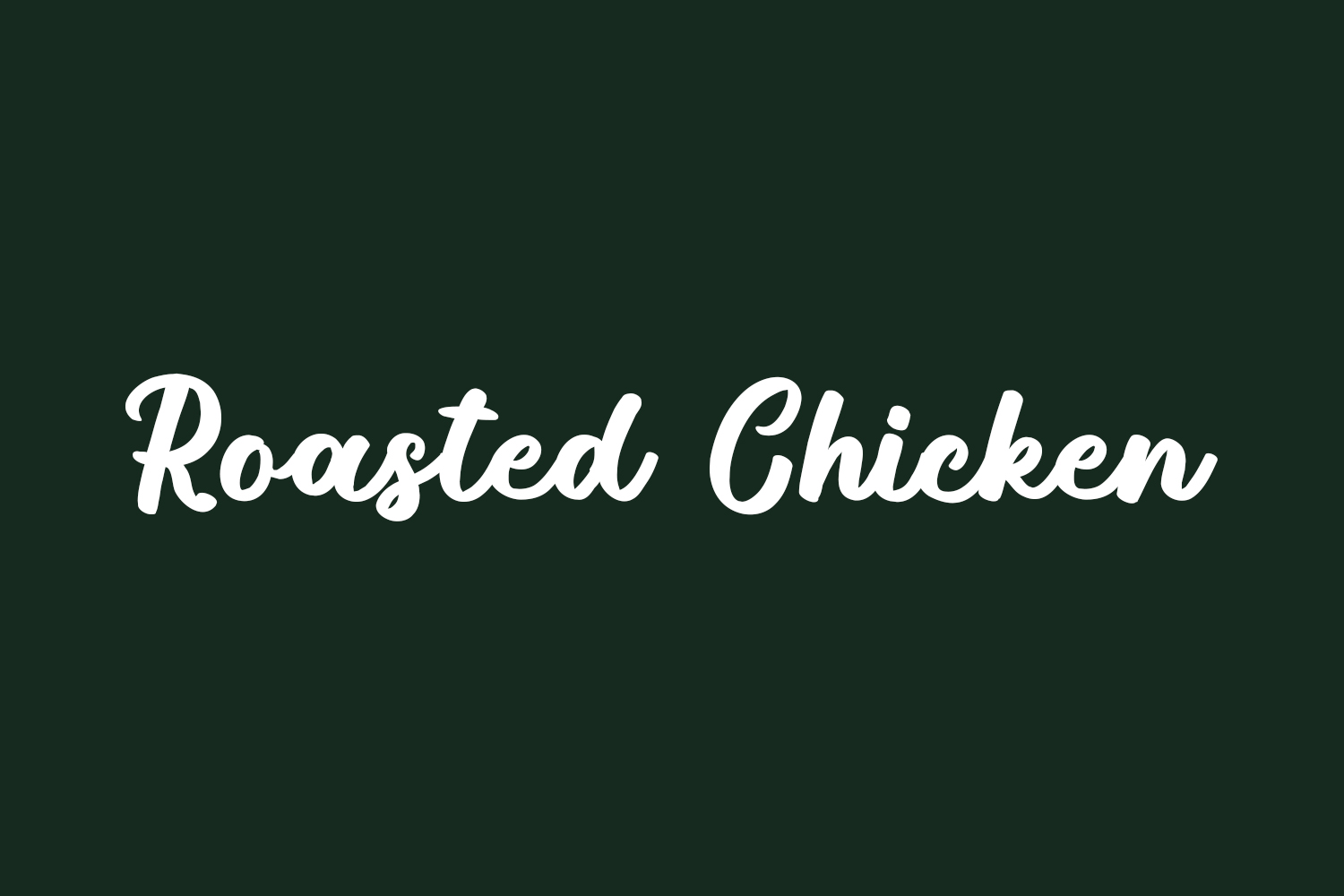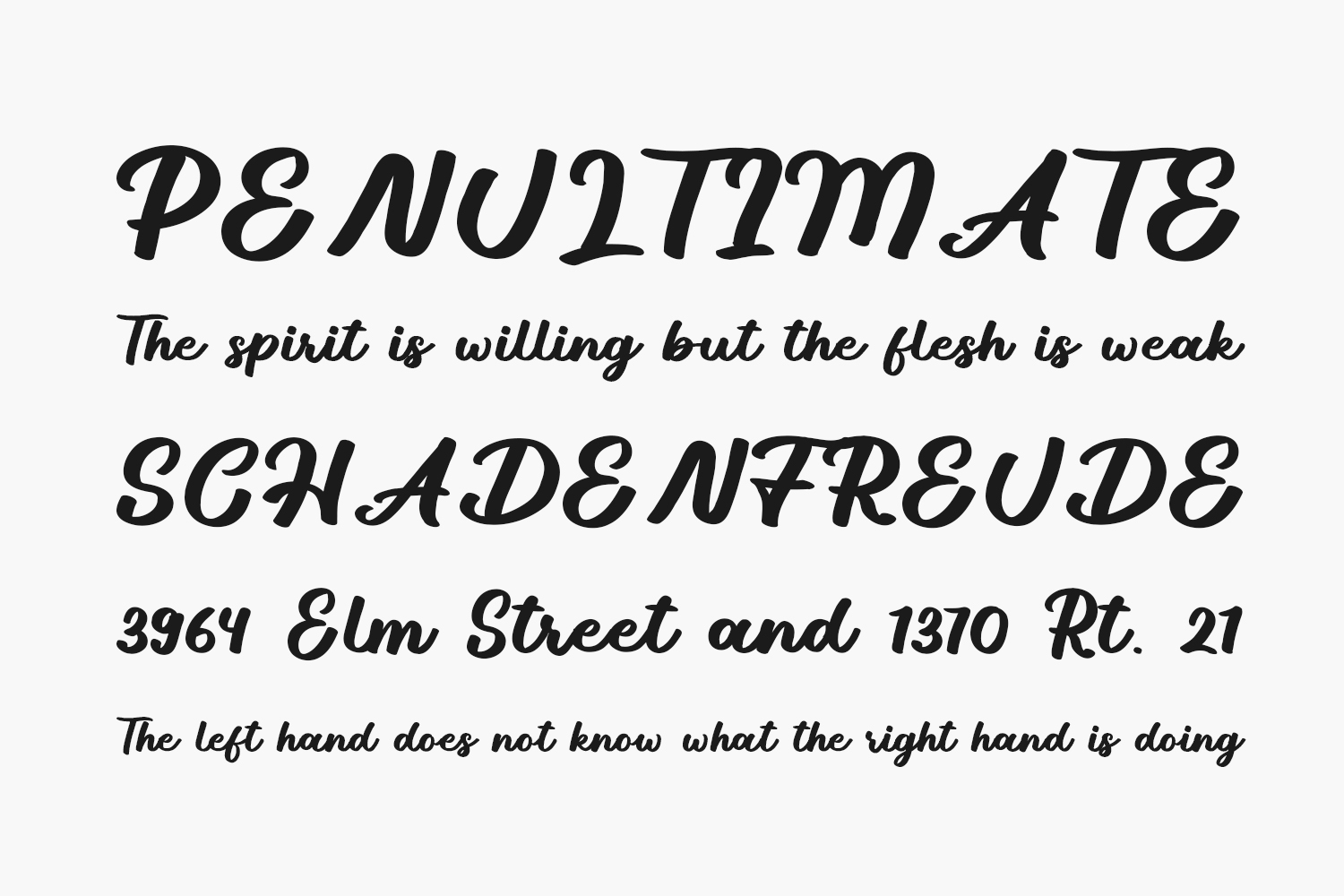
Roasted Chicken is a warm and expressive handwritten script font designed by Bluestype Studio to bring casual charm and organic energy to your creative projects. With its flowing strokes, playful variations, and natural handwriting appearance, this free decorative typeface works perfectly for crafting friendly logos, greeting cards, social media quotes, café menus, and more. Available in TTF and OTF formats — ideal for designers seeking a relaxed yet stylish script font that adds personality to informal branding or personal design work.
Why Choose Roasted Chicken?
- Casual Handwritten Style: Mimics real penmanship with flowing strokes and varying thickness for a warm, human touch.
- Ideal for Greeting Cards & Menus: Perfect for wedding RSVPs, baby showers, café branding, or lifestyle visuals needing a soft tone.
Where to Use Roasted Chicken?
Roasted Chicken shines across a variety of creative applications:
- Logos & Branding: Adds warmth to brand identities for casual cafés, toy brands, or boutique studios needing a friendly tone.
- Café Menus & Packaging: Perfect for restaurant names, food packaging, or artisanal labels requiring a hand-drawn style.
- Social Media Graphics: Creates bold text overlays for Instagram Stories, Pinterest pins, TikTok videos, and YouTube banners.
- Wedding Invitations: Brings charm to formal stationery sets, envelopes, and RSVP cards with a romantic appeal.
- Greeting Cards & Letters: Enhances thank-you notes, birthday cards, or handmade gift tags with a warm, personal feel.
Design Tips with Roasted Chicken
To get the most from Roasted Chicken, pair it with minimalist sans-serif fonts like Misto or Skeina for contrast and readability. Use this font at large sizes to highlight its expressive detailing and fluidity. For print work, apply subtle shadows or textured backgrounds to enhance its handwritten appeal. Try our interactive font preview tool below to test Roasted Chicken with your own text before downloading!
- Glyphs: 226 glyphs including uppercase (A-Z), lowercase (a-z), numerals, punctuation, and basic accents.
- Language Support: English, Spanish, French, German.
Designed by Bluestype Studio